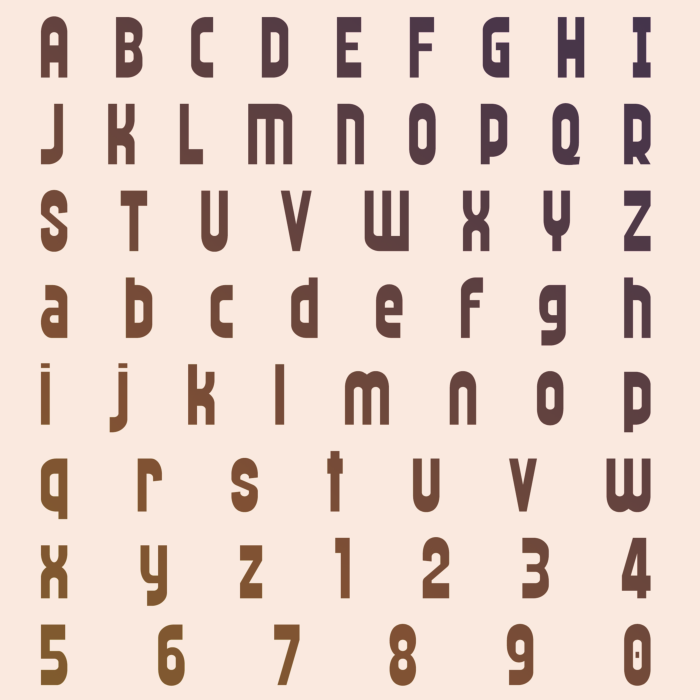
• GROOVERIDER — 70's future retro display sans
Grooverider is another groovy looking display style with that distinctive 70's retro aesthetics.
The concept for the lettering is that of a solid future retro / space-age style with inversed-stress.  It's reversed weight contrast adds some additional groovin' funkyness and good old boogie wonder flavour to the font's overall characteristics. Making it somewhat of a hybrid mixture between two distinct 70's and 80's retro styles.
Simple at the surface, but rather complex down at the Editor level, since the letterforms have several tailor-made geometry and curve shapes. Pulling off some glyphs without disrupting the (near) real Bézier curve geometry was tricky I must say. Like for example the joined letters such as lowercase Æ/Œ, question mark, @ sign, number 2 digit, percent sign and lowecase letter S all proved difficult. But also some unlikely ones that are typically pretty straight forward now were trickier within the font's parameters. But I'm pretty satisfied with the end result so far. Little to no compromising imperfections slipped into the design,  one or two real minor ones are present, but only truly become noticeable once the size is fully blown up.
It was very fun to make though, I hope y'all like it...
As you can see, except for the upper right corner circle segment brick no core-default curve geometry was used in the shown glyphs. This became somewhat the norm for this design. There are 3 or so more core-defaults in there somewhere, but the gross majority was all  tailor-made round contours.